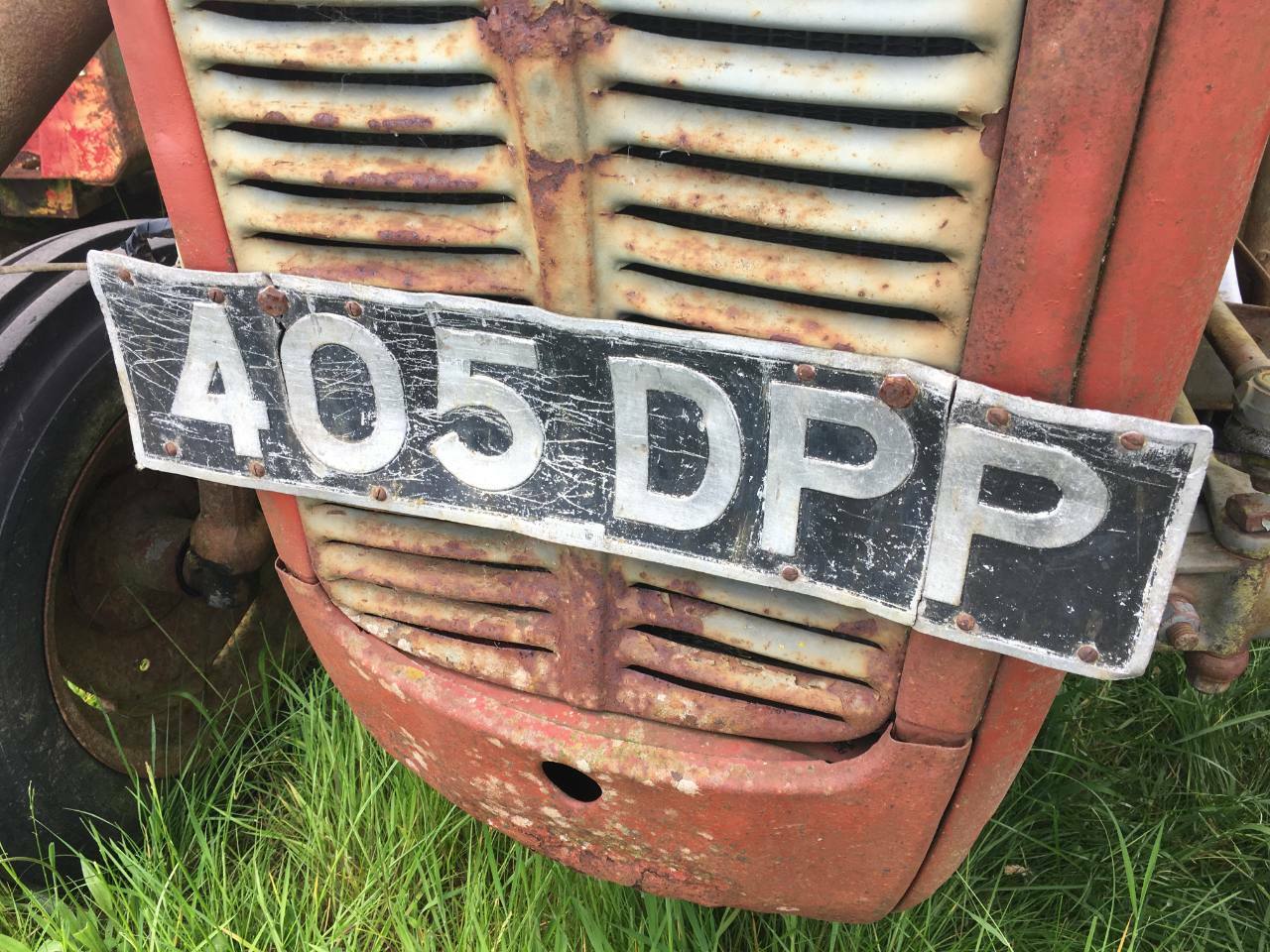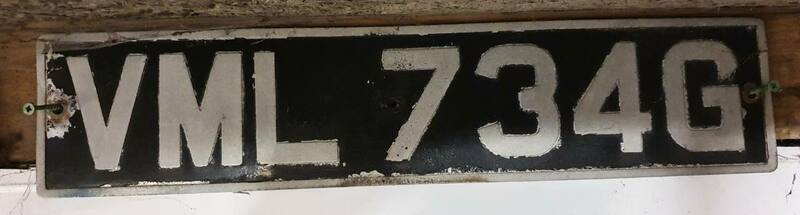
1960S UK Registration Plate Font
Do any font experts know what font this is, shown on a 1968 Peugeot 204 Coupe press demo.  Is obviously not the current one, or the pre-2001 font which I've shown as examples.  Perhaps it was a special one Peugeot used?
I want to say those are Hills number plates, note the serifs which are typical of Hills number plates
That looks spot on, yes.  Is Hills a font or a manufacturer?
Both :)
back in the old days, pretty much every plate manufacturer had its own font and style :)
its quite fun noting all the different types and styles, and some people like @MorrisItalSLX and my good friend Stuart Cyphus collect and document all the different types and styles
I dont collect number plates myself, but I do pay attention to the different styles and types and find it all quite interesting :) (and also means I get very tetchy when I see the wrong period of font or type of plate on a car, because its one of those things once you know whats right and wrong you cant un-notice it LOL)
I will have to compare the letters and number and try and find an appropriate font, I want to make up decals for my Otto Peugeot 204 1/18 model!
Definitely a Hills, the shape of the L & 4 are a dead giveaway and the slight raised section of the border under the 4 will be the Hills logo.
100% Hills , got the original digits on my Singer , remade the backing plate though , The 9 is also pretty unique as its not curled round like most , A few years ago a woman came up to my Singer . " Nice to see a HILLS plate still in use " , turns out her dad designed the font - never thought to ask what it was called .
That must be why that 1980s squarish font is known as ‘Serck’? To me Serck is/was a car parts factor, and it always confused me.
Are Hills still going, or at least someone else now own the brand/intellectual property and can remake them? Sure I’ve seen an advert for Hills plates recently.
indeed thats exactly why its called that :) known as the Serck computer font in full (which can sort of trace its roots back to 1927! as the Company bought out the Homo number plate company in 1958)
EDIT: also worth noting that I think those plates in your picture are a pair of Homo-Hygrade plates, notable by the distinctive way they did the digit 8 :) (and technically a predecessor of the serck plate as the company was bought out by them IIRC!)
re: Hills, are the plates on the Peugeot in question not pressed metal rather than raised digit? They really don't look like raised digits to me.
the Italian Job Minis had metal plates for sure.
indeed I would say its a pressed metal plate, but I think the question at hand here was more what the font was :)
Hills used the same font for both Pressed and raised digit plates, although in 1970 they did change style a bit note the different style of 4 :)  (but that the P and 1 still has its serif)
(im not sure if this change applied to raised digit plates as well or if it was a just a change made to pressed plates however)
Here you go. All that now remains of the old girl 😕